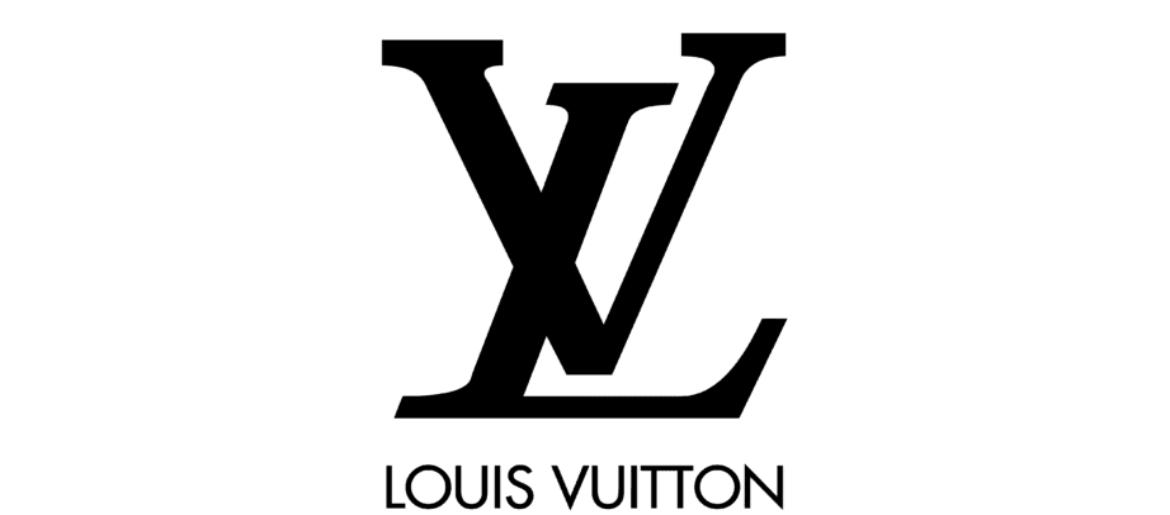
Louis Vuitton Font
Louis Vuitton Font represents the perfect balance of heritage and modernity that defines the luxury fashion house. The typeface used in the Louis Vuitton logo is Intrepid, a geometric sans-serif font that exudes clarity and strength. Its crisp lines and confident structure mirror the brand’s commitment to craftsmanship, exclusivity, and timeless style.
The Louis Vuitton logo font is instantly recognizable across global campaigns, store signage, and product packaging. Its simplicity enhances the brand’s visual identity without overshadowing the iconic LV monogram. This minimalist yet refined typography reinforces the brand’s values of elegance, durability, and sophistication—qualities that have made Louis Vuitton a symbol of luxury for generations.
Designers who admire Louis Vuitton’s sleek aesthetic can achieve a similar tone using Intrepid or comparable sans-serif typefaces. These fonts embody modern luxury and are ideal for projects that require both authority and refinement.